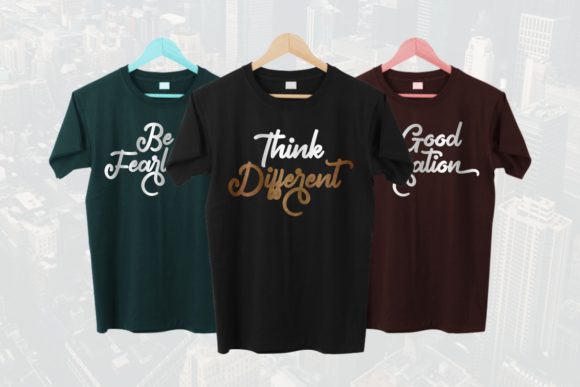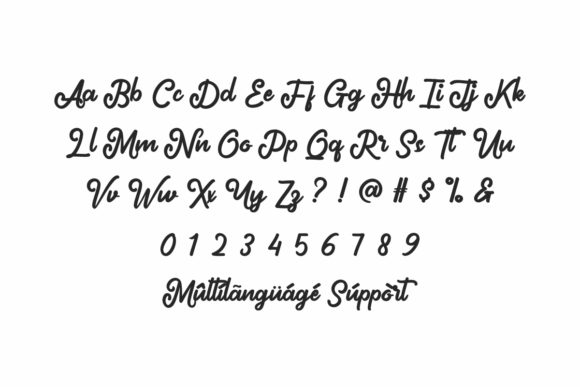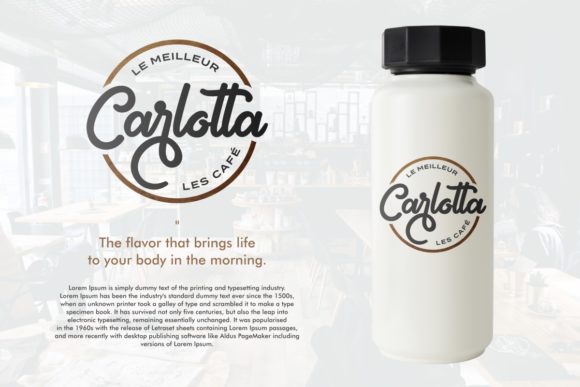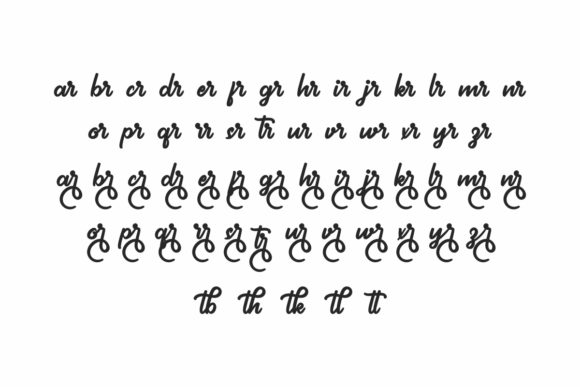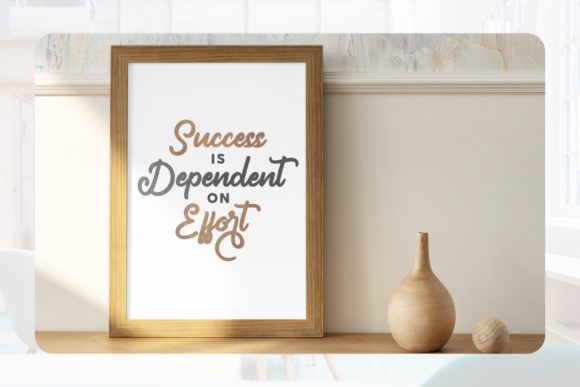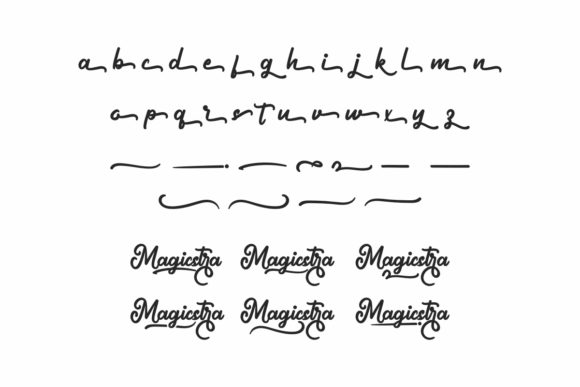
Introduction to Magicstra Font
Do you remember the moment when you stumbled upon the perfect font for your creative project? The one that instantly elevates your design and makes it stand out from the crowd? For designers, finding that elusive font can be a game-changer. It’s the difference between a mediocre design and a masterpiece. And, for those who have been searching for that perfect handwritten font, your wait is over.
Introducing the Magicstra Font, a classic handwritten font that’s about to become your new best friend. With its unique charm and high-quality design, this font is the perfect addition to any creative project. Whether you’re working on a logo, poster, or social media graphics, Magicstra Font is sure to bring a touch of elegance and sophistication to your designs.
Key Features of Magicstra Font
- High-quality design: Magicstra Font offers a unique blend of modern and magical elements, perfect for creative projects that require a touch of whimsy.
- High-resolution glyphs: The font features high-resolution glyphs, ensuring that the text remains crisp and clear even at large sizes.
- Unique magical elements: Magicstra Font includes a range of unique magical elements, such as stars, moons, and other mystical symbols, that can be used to add an extra layer of depth and meaning to your design.
- Perfect for creative projects: With its unique blend of modern and magical elements, Magicstra Font is perfect for designers working on creative projects such as fantasy novels, video games, and more.
Honest Review: Magicstra Font
As a designer, I’m always on the lookout for high-quality design resources that can elevate my creative projects. Recently, I stumbled upon the Magicstra Font, and I’m excited to share my honest review with you.
Here are some things that I think work well about this font:
- ✨ High-quality design: The Magicstra Font has a sleek and modern aesthetic that’s perfect for a wide range of creative projects.
- ⚠️ Limited font styles: While the Magicstra Font has a clean and modern look, it’s limited to a single style, which may not be ideal for designers who need a variety of font options.
Overall, I think the Magicstra Font is a solid choice for designers who are looking for a high-quality, free design resource for their creative projects. While it has some limitations, it’s definitely worth checking out if you’re looking for a modern and sleek font to add some visual interest to your designs.